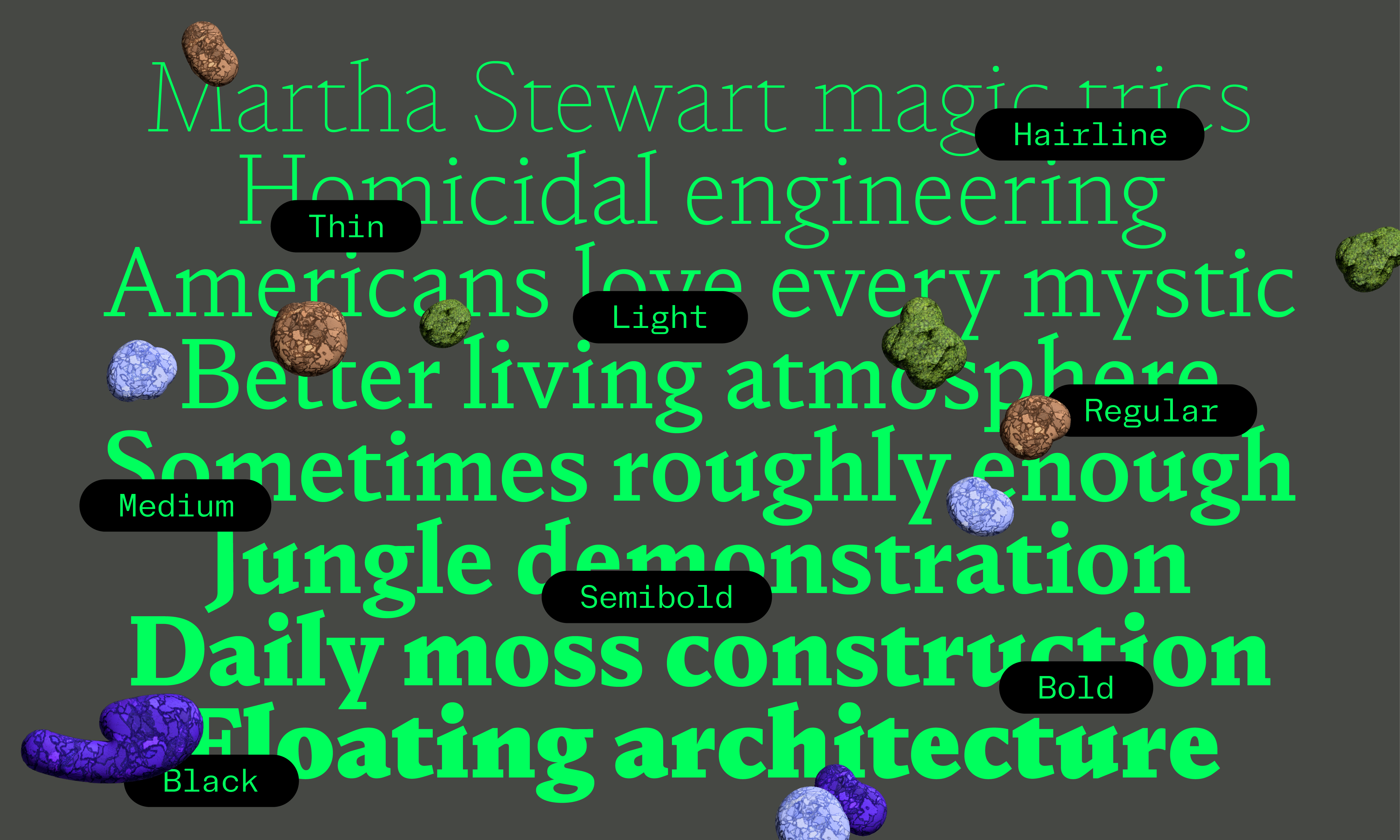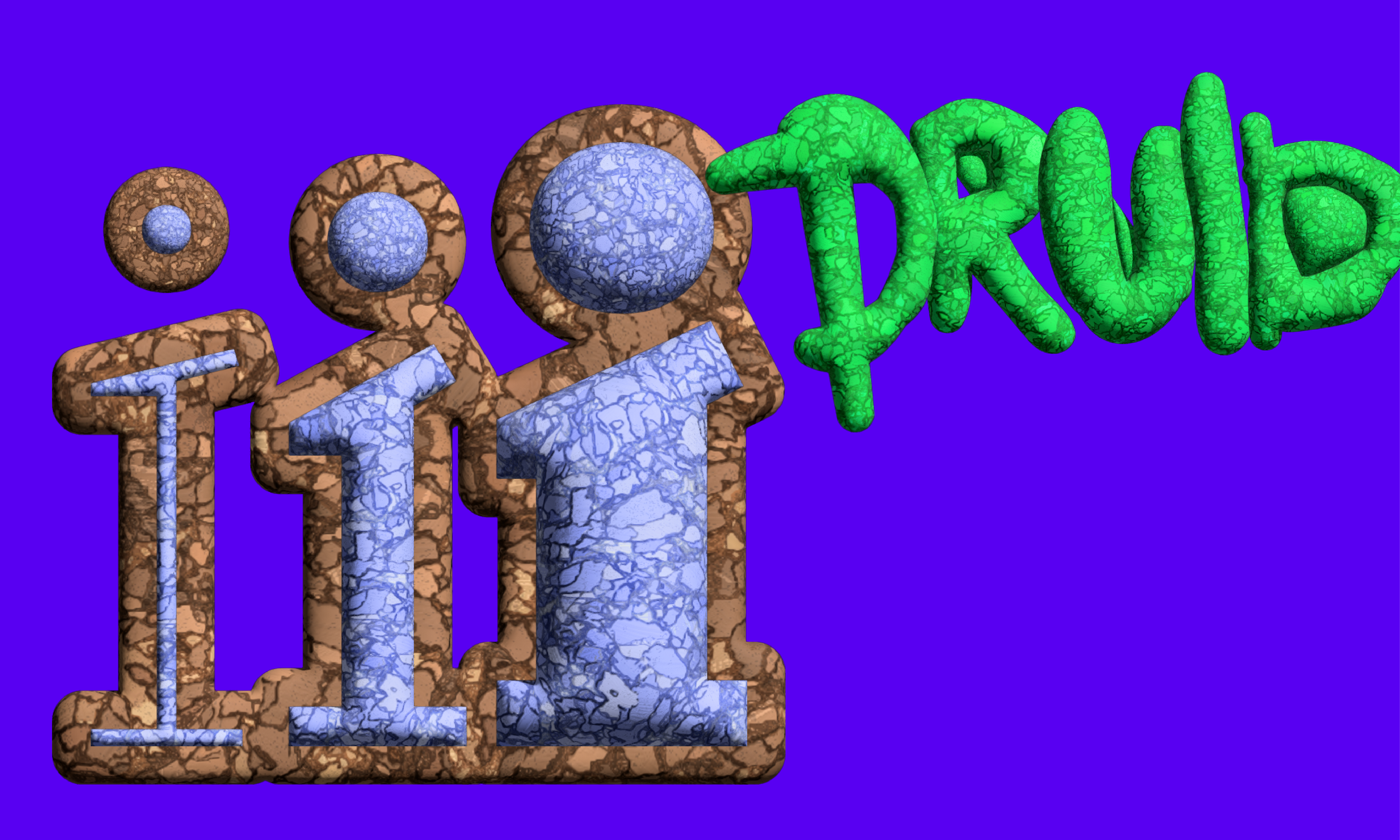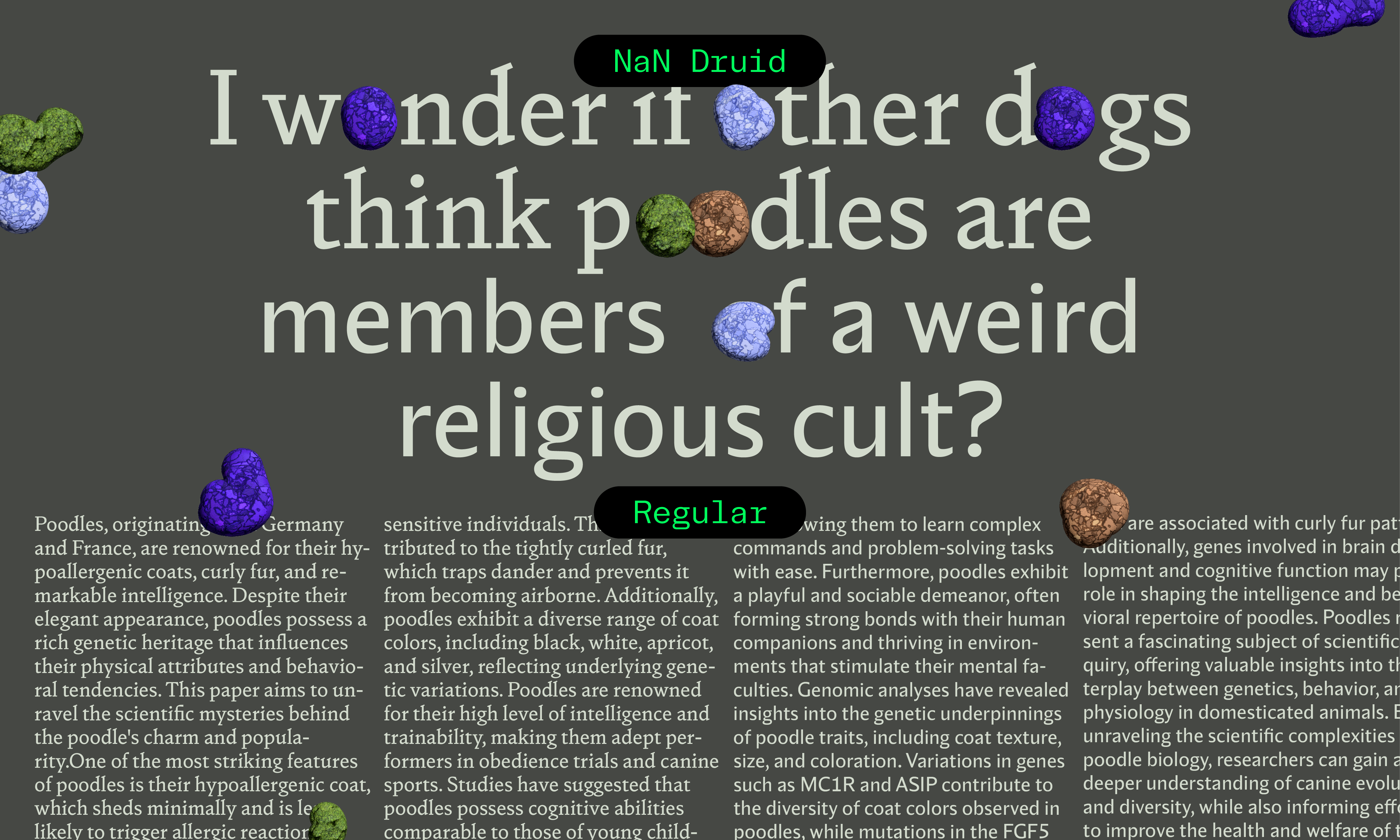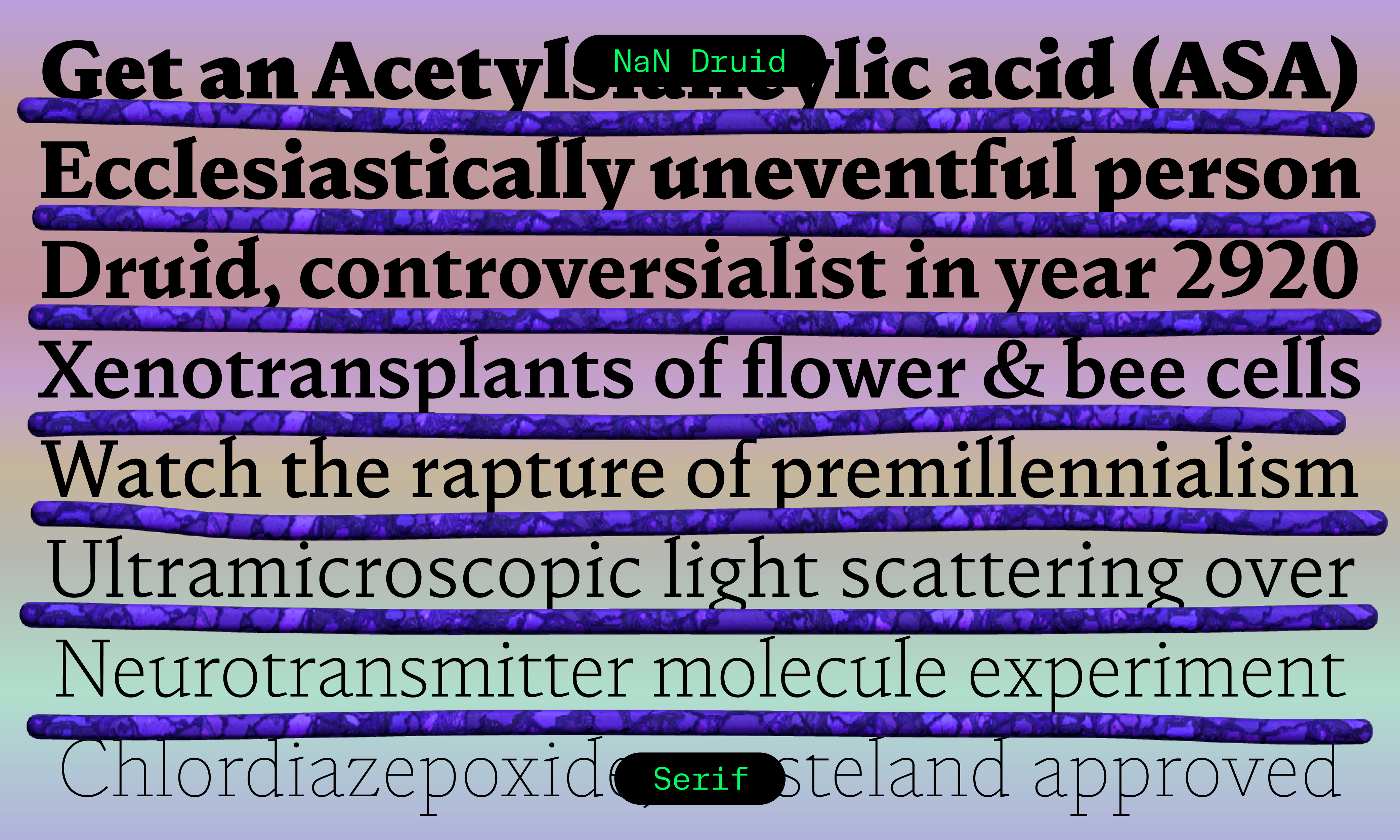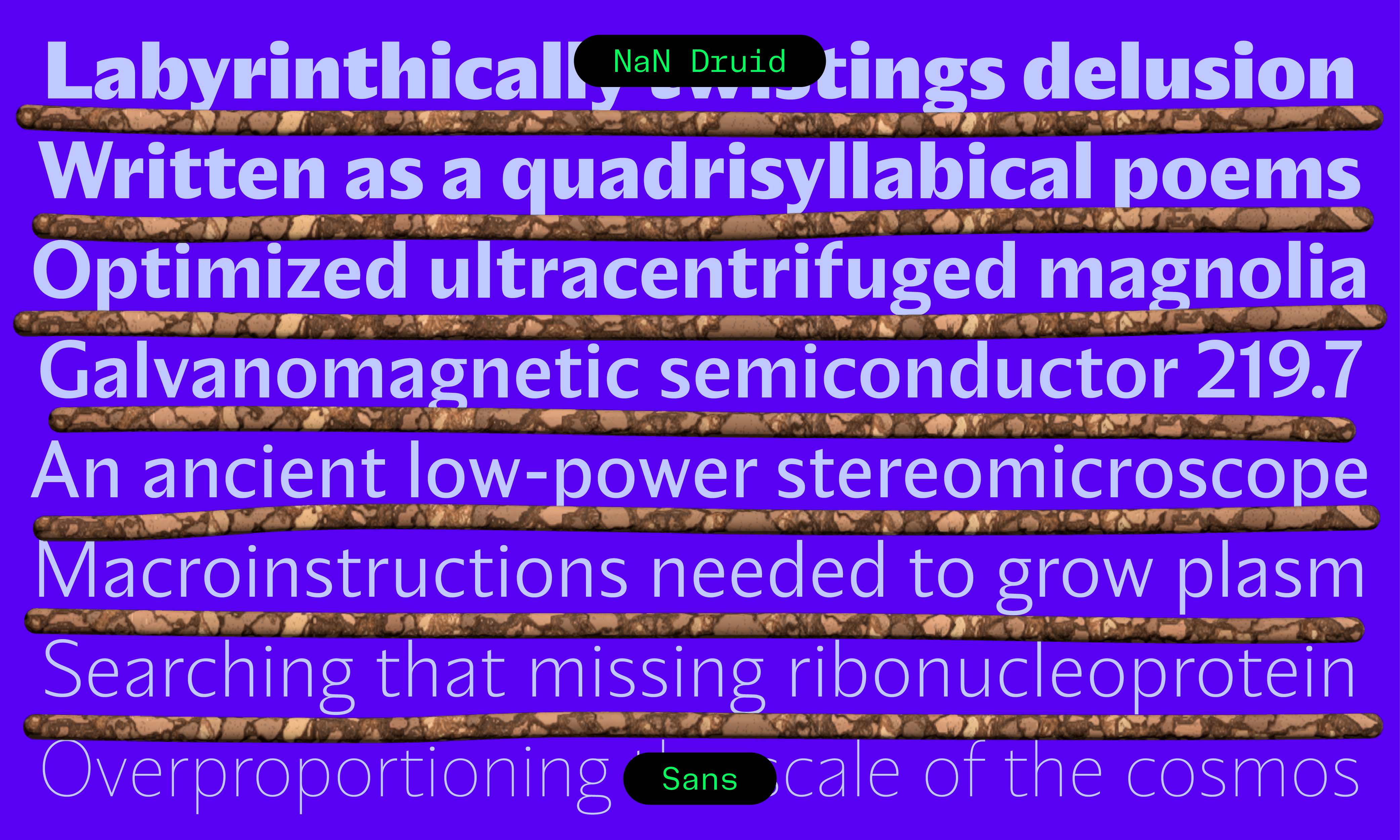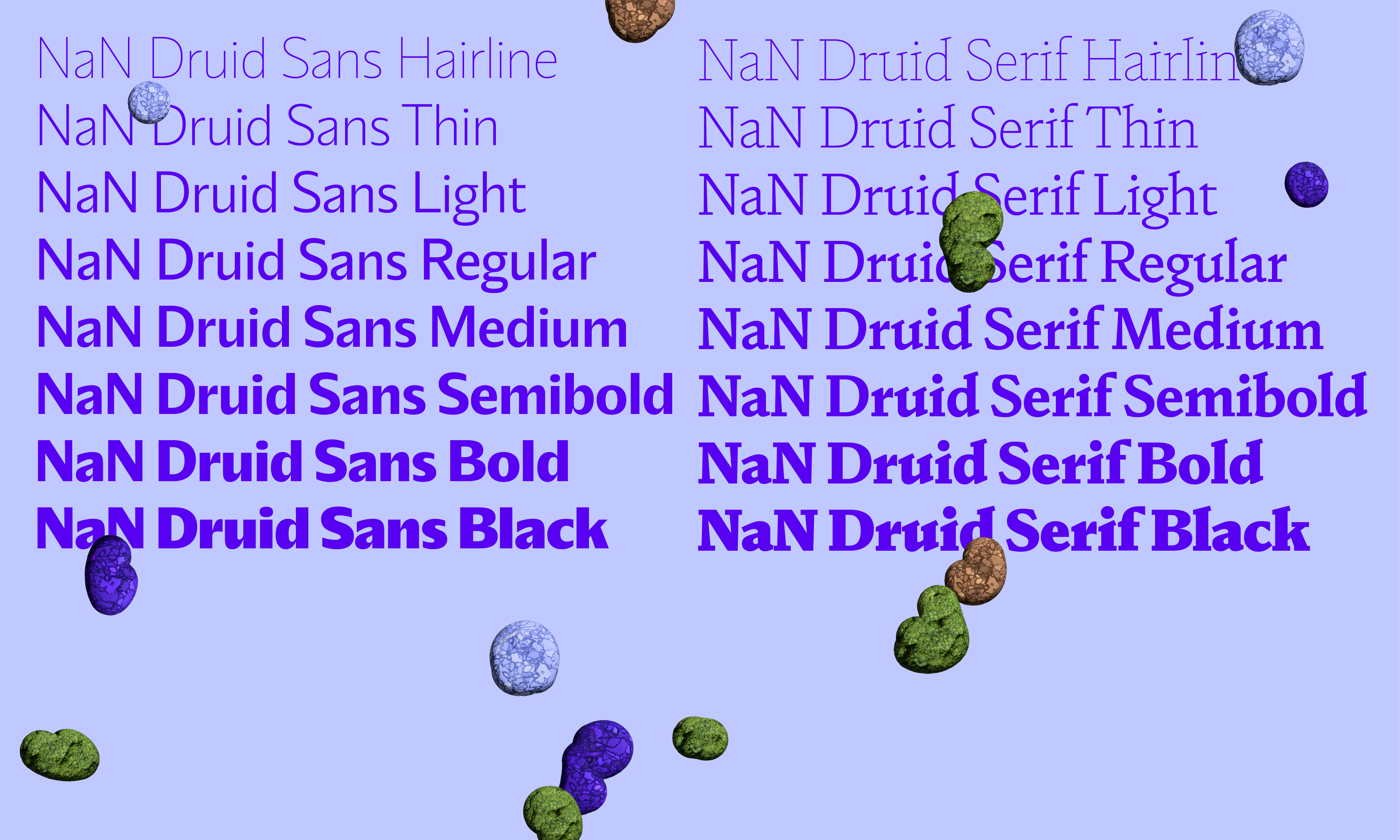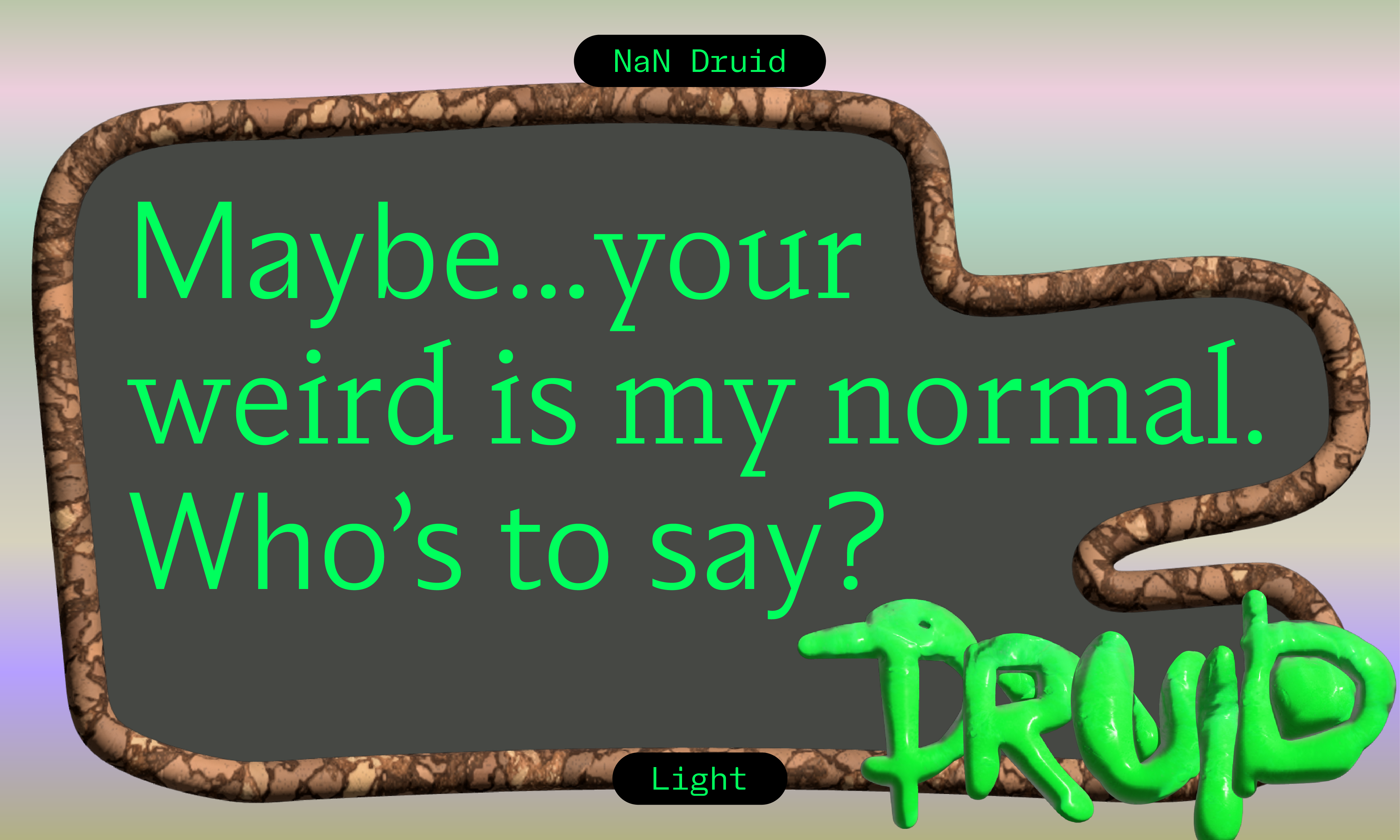
About NaN Druid
Druid by name, Druid in nature. Mystic, magical and metaphysical, Druid is a two-headed font family that imagines and actualises the worlds of histories and the unexpected from the minds of Co-Archdruids Reymund Schröder and Anna Khorash. Conjured into a being of dual realms, the family features a serif and a sans-serif that share matching proportions and weights but diverge in their contrasting styles. The serif, uniquely, offers a lower contrast, lending it a text-friendly subtlety, while the sans-serif, with its higher contrast, commands attention as a display powerhouse while still having a choking legibility at text-size. This versatility is your power to wield.
The creation of such a beast can only occur through collaborative alchemy, born from the shared space where creativity brews. Here, Schröder and Khorash engaged in a symbiotic design process, imagining and reimagining the typeface as a living, evolving entity, each given equal authorship from the very beginning. The powerful pair planted Druid’s roots in a Jenson-adjacent, hybrid style that beautifully vibrates between antique and slab serifs. Druid Sans borrows its sibling’s humanist structure and applies it to a crystal-clear sans serif with very open counters. Its endings oscillate between flared and tapered, subtly giving away its calligraphic roots while infusing it with a sharp-but-not-spiky undertaste.
As such, both the families offer graphic clarity with a lucid, reduced structure, making them versatile across both display and text settings. With weights ranging from a delicate monolinear thin to a robust black, Druid and Druid Sans proudly present a spectrum of expression, each form sharply defined and purposefully crafted for visual impact.
Dowsing rods at the ready, Khorash and Schröder discovered greater inspiration from the mystical and the natural world, incorporating elements that echo our ancient connection to the earth and the esoteric. Druid embraces nature and nurture. The magic and the mysterious. Mistletoe, oak leaves, feathers, and bones. All woven into the very fibres of its characters. Look close and you’ll find such twists – from its ampersands to its paragraph marks, each glyph carries with it a story of alternative growths and hidden meanings.
Druid is your invitation to explore realms of divination, foresight, and the mystical – designed for those who seek to imbue their words with more than meaning. To instil them with soul and a touch of the arcane. Tread carefully.
Typeface: NaN Druid
Designed by: Anna Khorash & Reymund Schröder